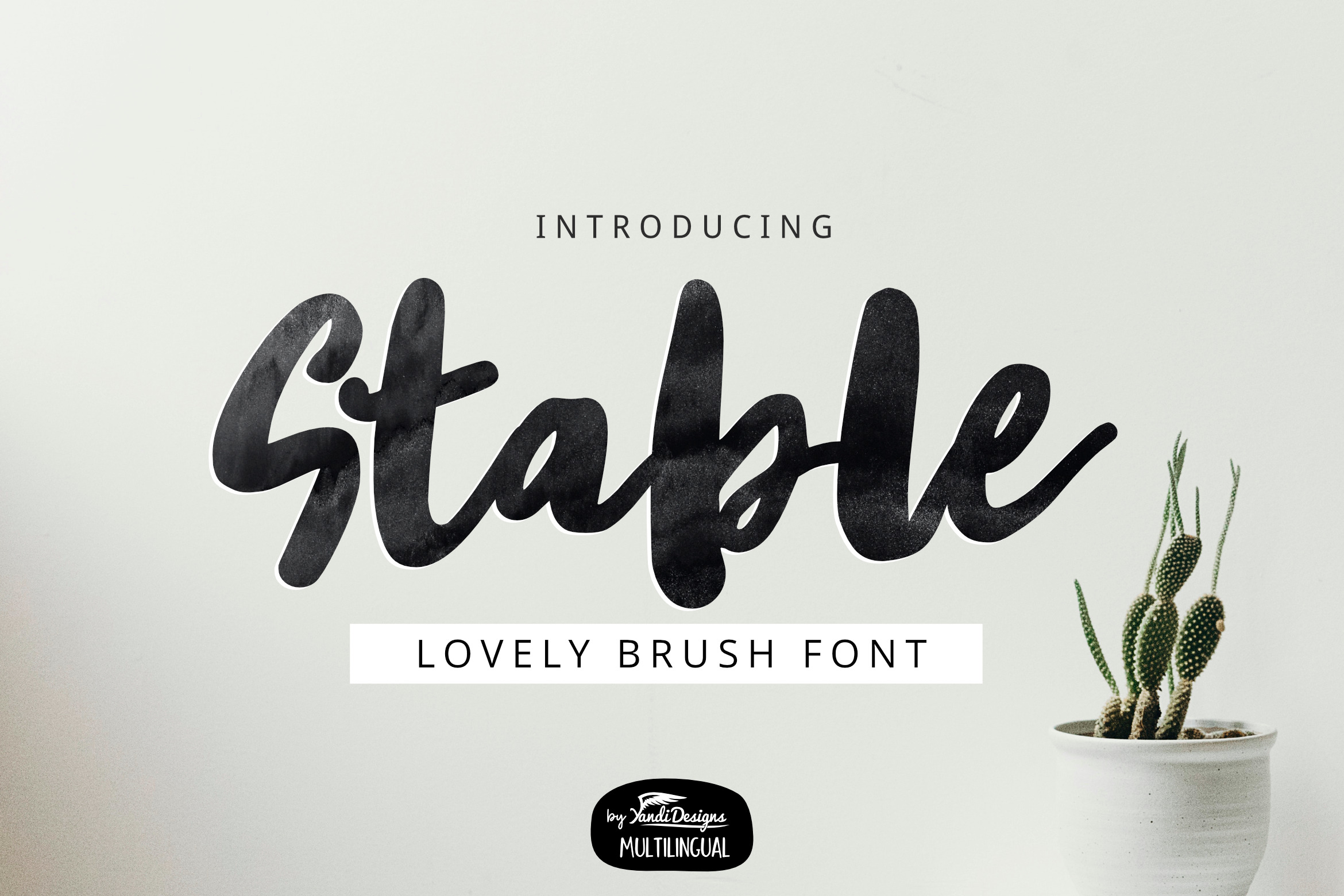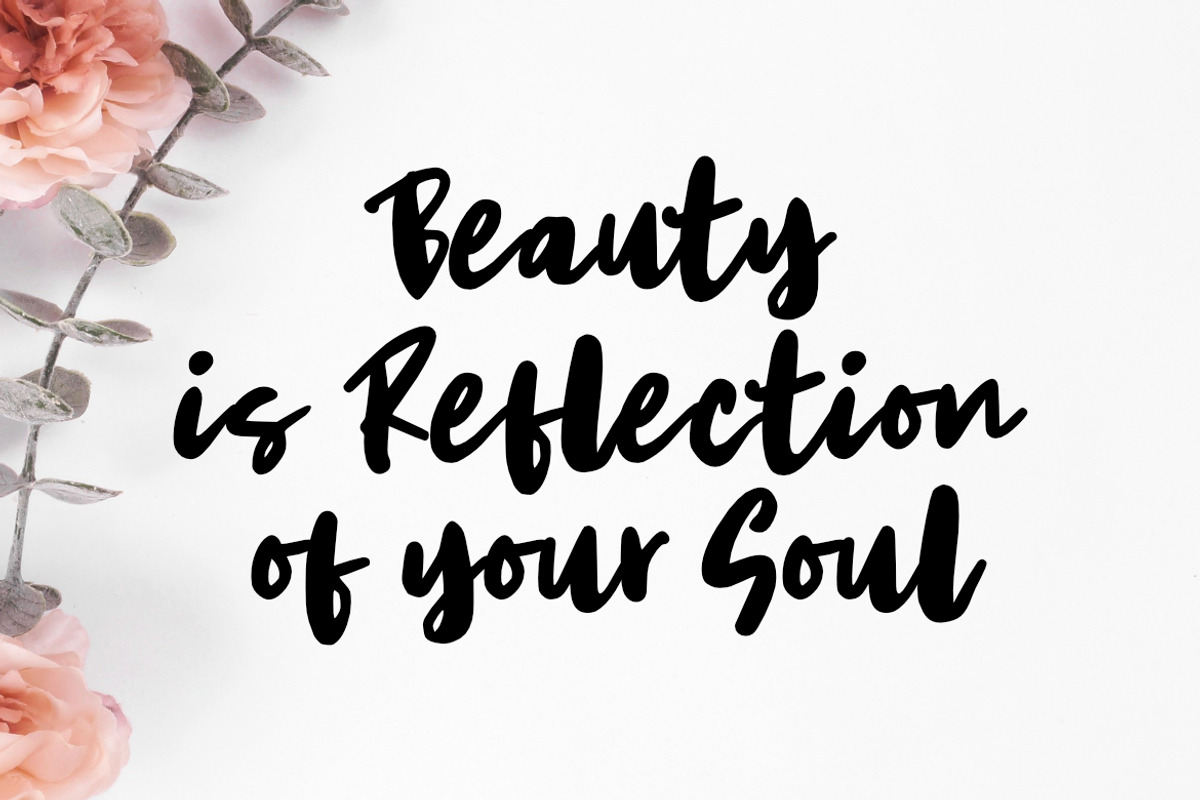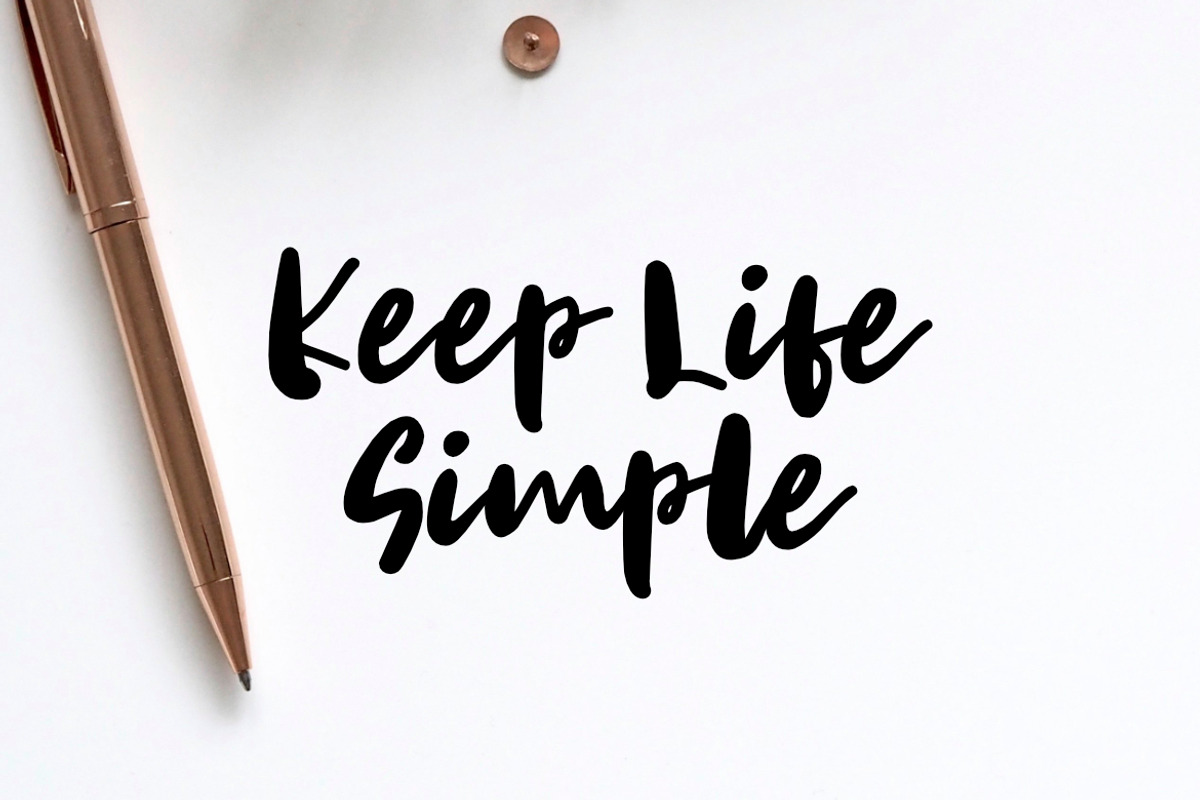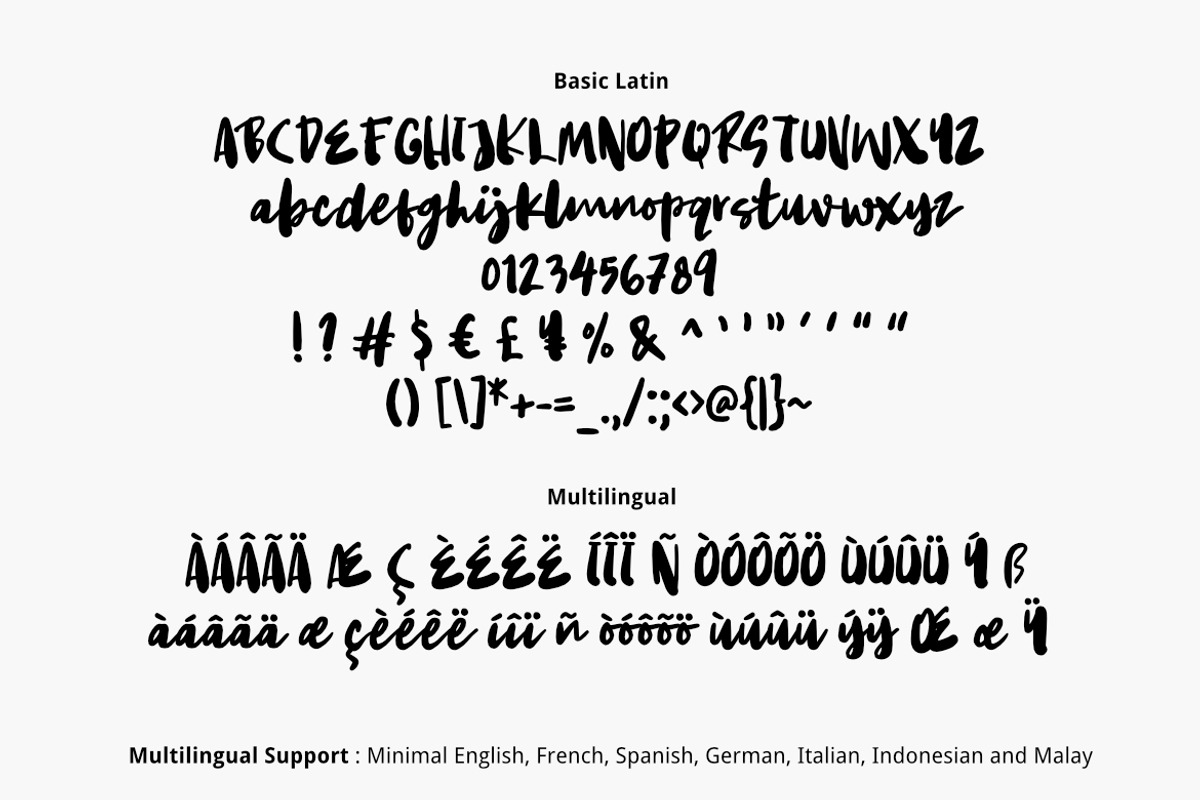
Stable Brush Font
Stable is modern multipurpose handmade brush font, suitable for many project children book, quotes, logo , heading , title etc.
Basic Latin (Standard English character , number, symbol) Multilingual Support (minimal English, French, Spanish, German, Italian, Indonesian, Malay)